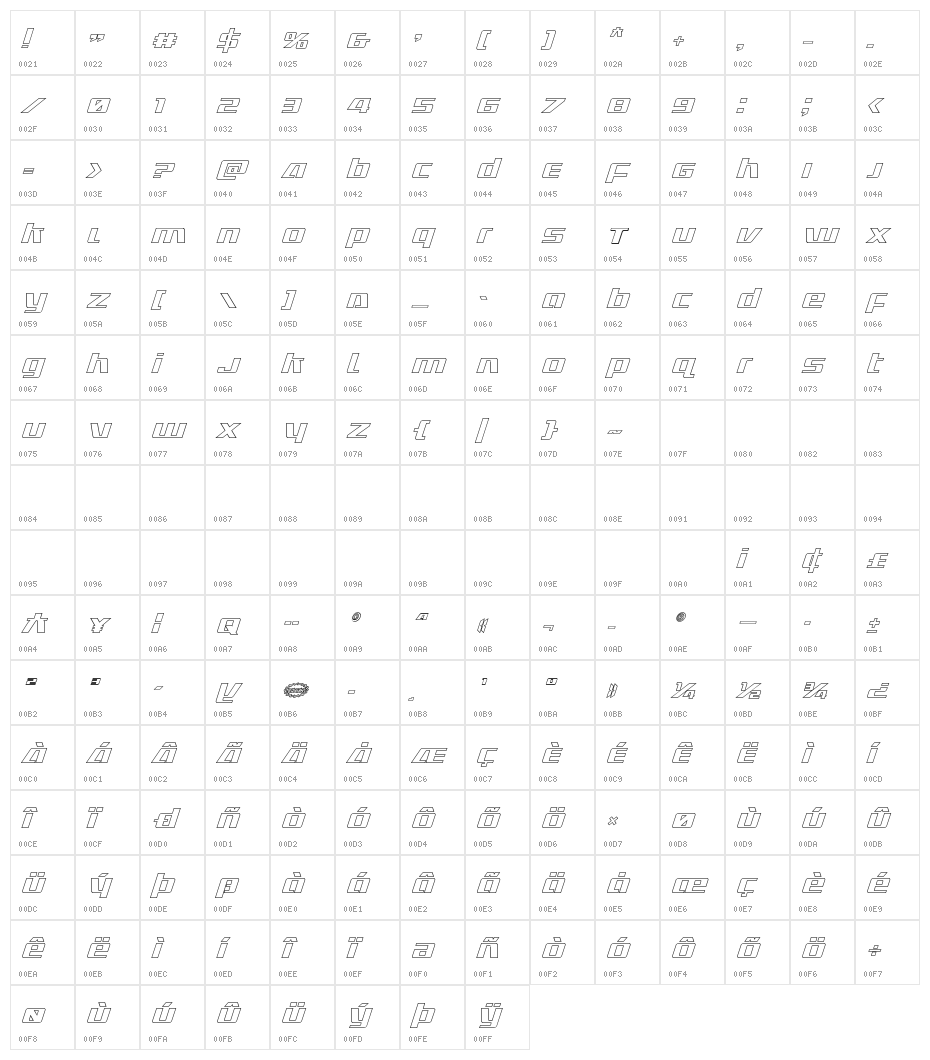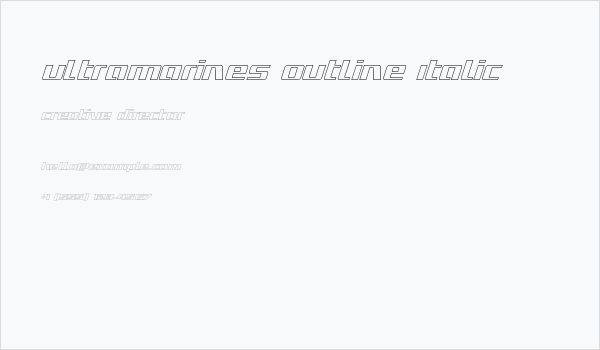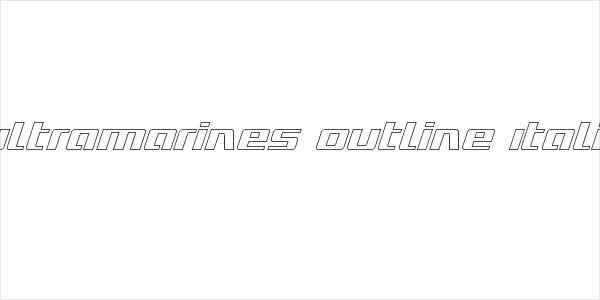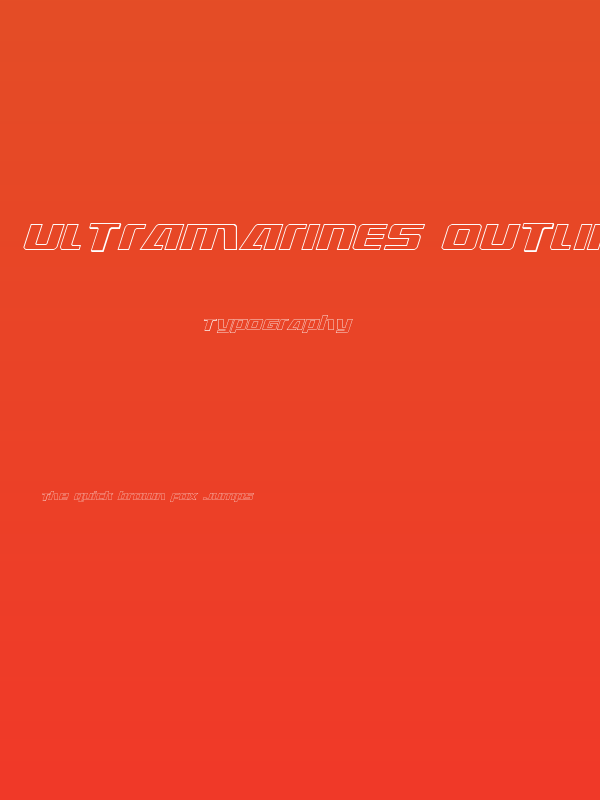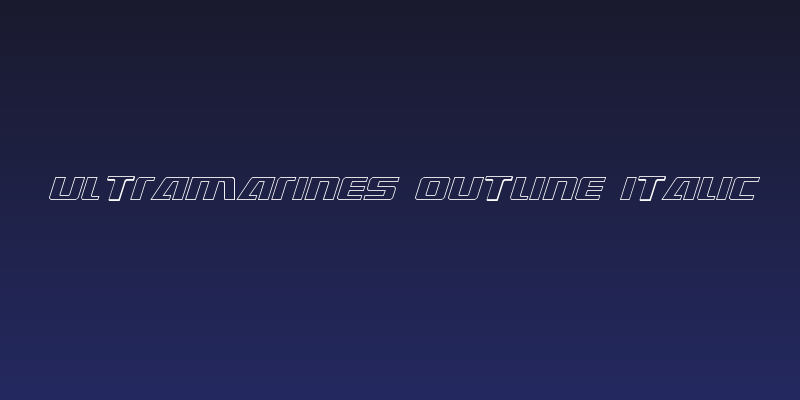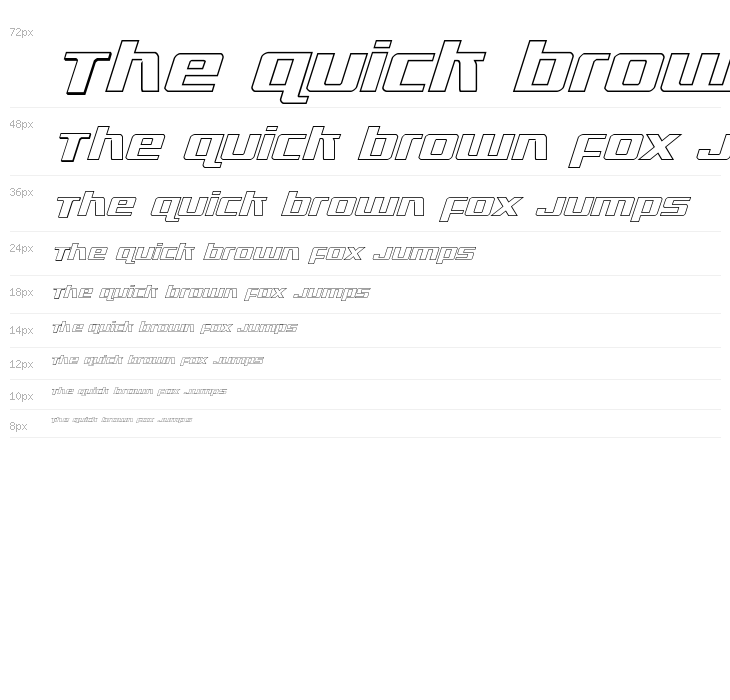
Ultramarines Outline Italic Font
Ultramarines Outline Italic Description
This font features a bold, futuristic design with an outline style that gives it a distinct, modern appearance. The italicized slant adds a dynamic and forward-moving feel, making it ideal for projects that require a sense of speed or innovation. The characters are geometric and angular, with sharp edges and clean lines. The uppercase and lowercase letters maintain a consistent style, ensuring readability while adding a unique flair. The numbers and special characters follow the same design principles, providing a cohesive look across all elements.
| Proposed Projects | Ideal for sci-fi themed projects, tech branding, video game titles, and futuristic posters. |